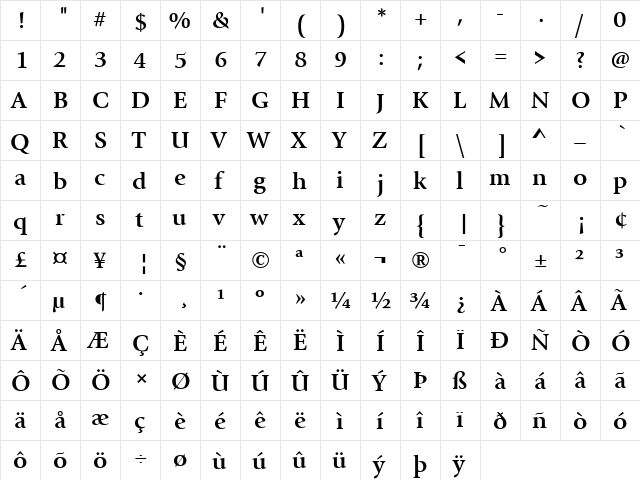
Giovanni Itc T Regular
Design Context for Giovanni Itc T Typeface
Giovanni Itc T takes a measured approach to typography — its balanced proportions and neutral character make it a reliable workhorse for both digital and print work.